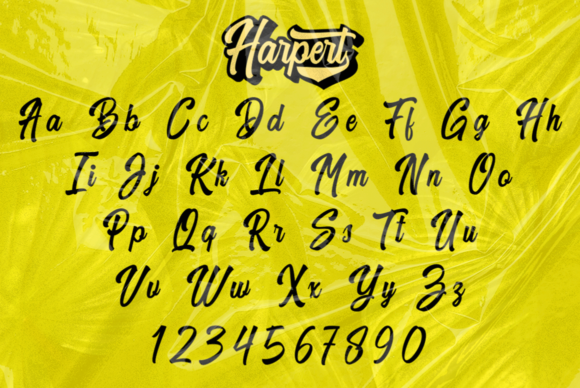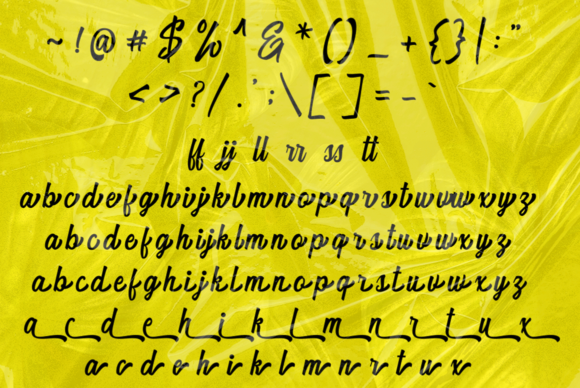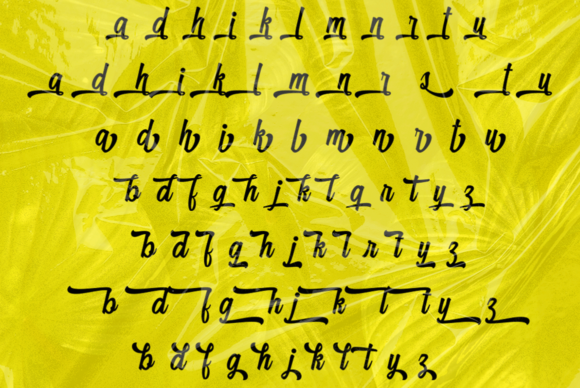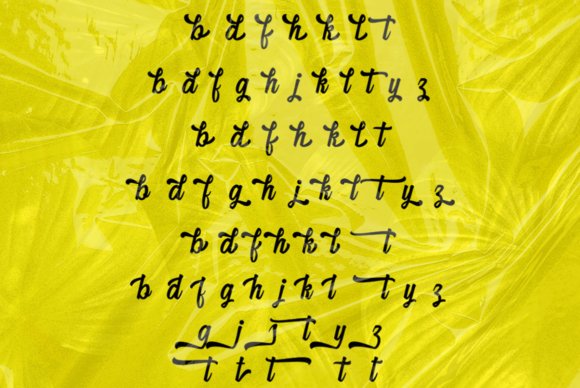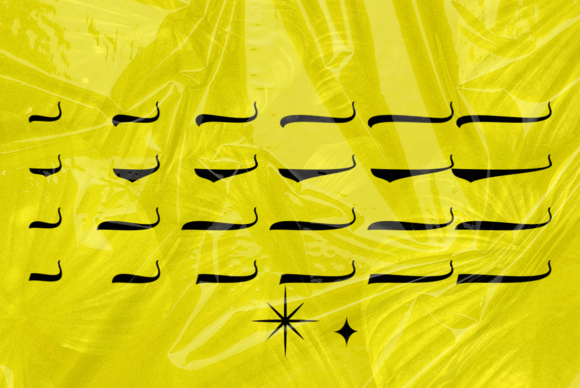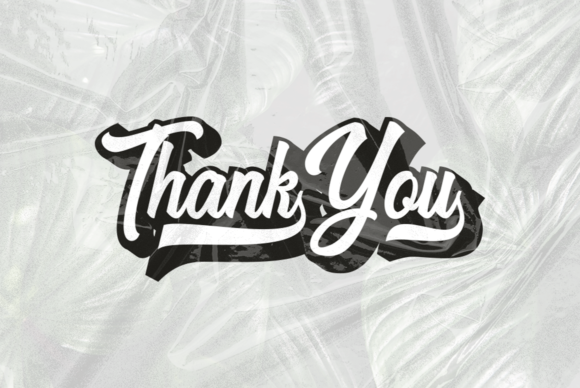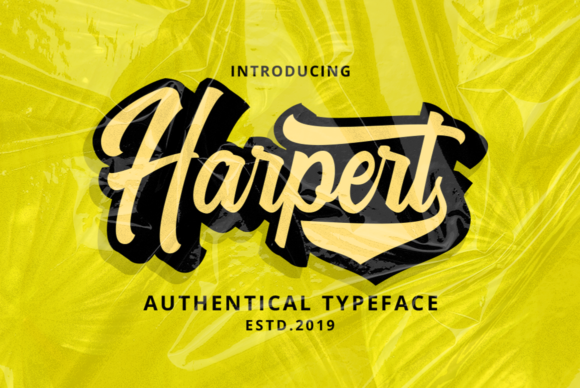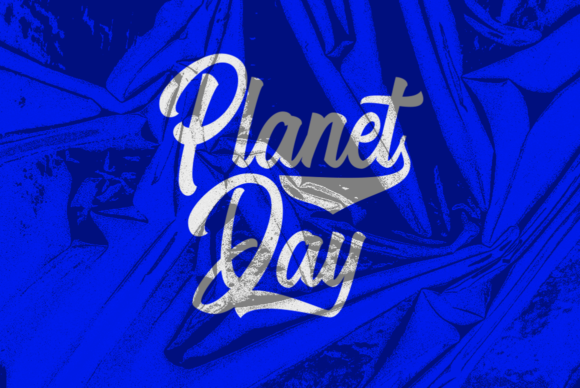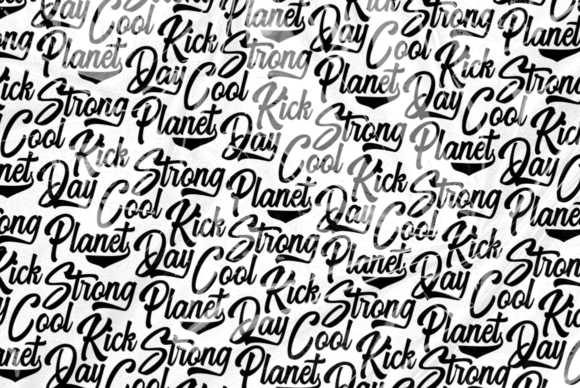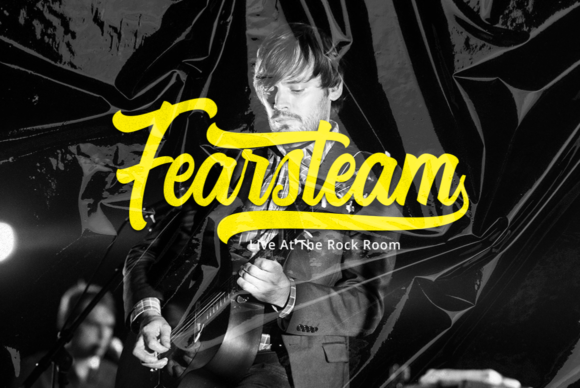
Harpert Font
About Harpert Font
Inspired by vintage aesthetics and with a unique retro feel, Harpert has a personal touch in every single curve. It will surely inspire you for a big variety of design projects!